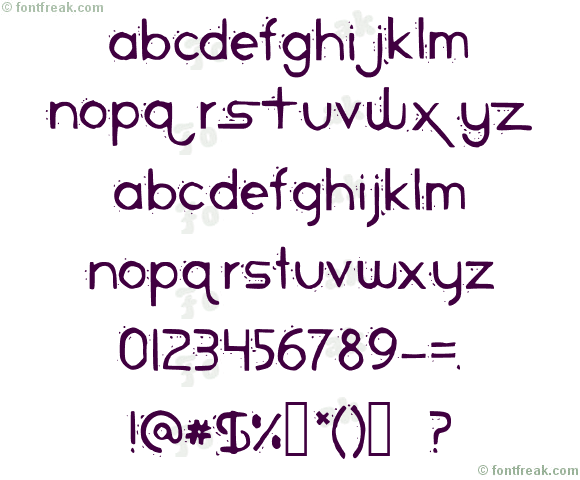
Piranha
About Piranha
Piranha is a striking display font created by Leonard Posavec, available for free download on MyScriptFont.com. This unique typeface falls into the category of decorative fonts, characterized by its bold and playful design. With a distinct stroke weight and moderate contrast, Piranha exudes a sense of modernity while retaining a whimsical charm. The letters are well-spaced, giving the font an airy feel that enhances readability, making it suitable for various applications.
Visual characteristics of the Piranha font include rounded edges and a slightly uneven baseline, which adds a dynamic quality to the text. These features make it particularly appealing for projects that aim to capture attention and convey a sense of creativity. The font’s decorative elements, such as its quirky letterforms, set it apart from more traditional typefaces, making it a fantastic choice for eye-catching designs.
Piranha is perfect for a variety of use cases. It shines in wedding invitations, where its playful yet elegant style can elevate the overall aesthetic. Additionally, it works wonderfully on movie posters, lending a vibrant energy that draws viewers in. Restaurant menus can also benefit from Piranha’s distinctive look, making dishes stand out and enticing diners. Moreover, this font is ideal for branding projects aimed at younger audiences, such as promotional materials for children's events or products.
Targeted towards graphic designers, small business owners, and content creators, Piranha offers a versatile option for those looking to make an impact with their typography. What truly sets this font apart is its ability to convey personality and flair while remaining highly functional. With the Piranha font free download available, it's an excellent addition to any designer's toolkit, ready to bring a fresh and imaginative touch to numerous design projects.